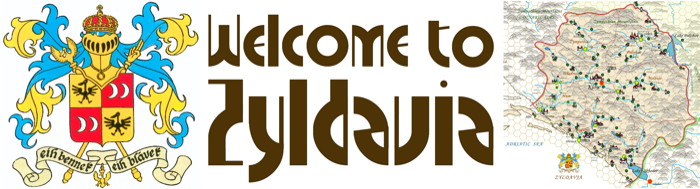
This is my little homage to the great Georges Remi, aka Hergé, creator of my dearest The Adventures of Tintin comic series. He invented Syldavia in "King Ottokar's Sceptre" adventure. (The map here bellow is it all fictional).
Great type! I want to know how you've envisioned zyldavia to be in this form based from the land of Syldavia? From my perspective, the typeface has a very strong artistic style of the Bauhaus, as supported by the geometric forms, varying stroke widths (and a primary colour scheme would complete the look).
I love this.
Your comma, btw, is a bit higher than your semi-colon.
Wow! This is something serious. Pretty modern letters. The style, is a mixture of retro, bauhaus, and art deco. The simple geometric shapes, the abrupt contrast of thick and thin stokes makes Zyldavia very exciting. I only have a few suggestions for minor things. The dot on the i,j could be a little bigger. All the letters and numbers are beautiful. Punctuation: the comma (,) would be more visible if you make it identical to quotation right (’), the one that looks like 9. The [ ] and ( ) | should be thin stroke. The circles of © and ®, as well as parts of the @ should be thin too. I know you couldn't make them thin, beause of technical limits. However, if you ever decide to polish this font in FontLab / Glyphs, etc., make them thin. Again, this a beautiful new work. Congratulations. 10/10
Yeah, what Frodo7 said... 10/10
I love *this* kind of fonts! (And Tintin as well.)
I think M/W might look better if they were more like nn/uu, and the dots in the umlaut could be a little further apart.
A fitting tribute. And exceptionally beautiful.
Beautifully elegant modernism. Love the descender on g!
Glyphs B, 6 and 9 improved.
Added/modified a few other glyphs.